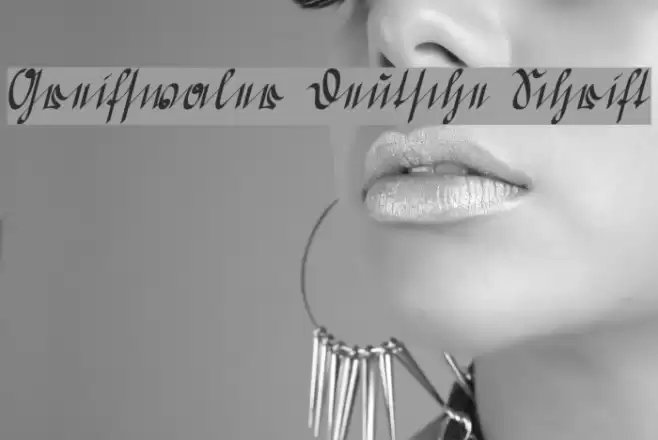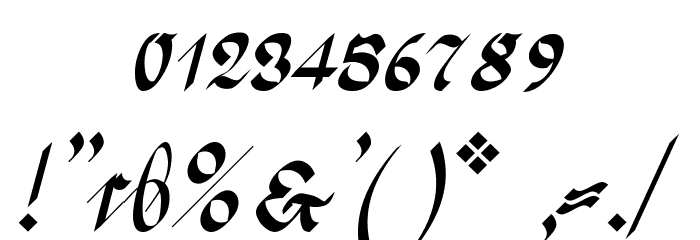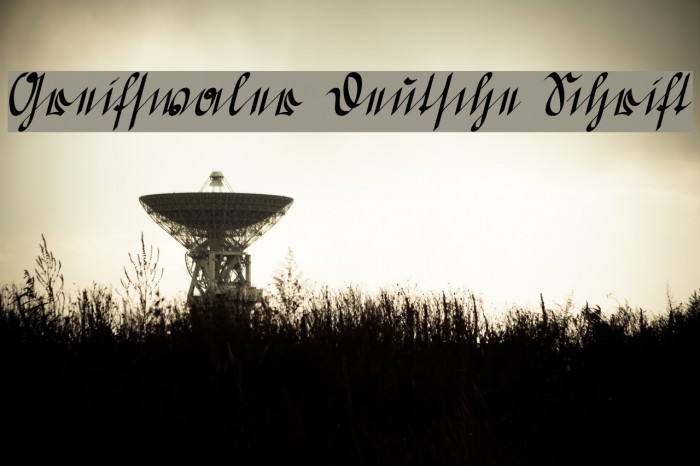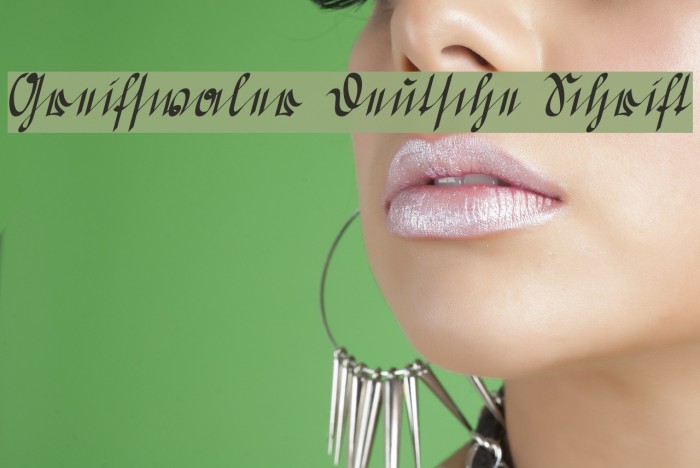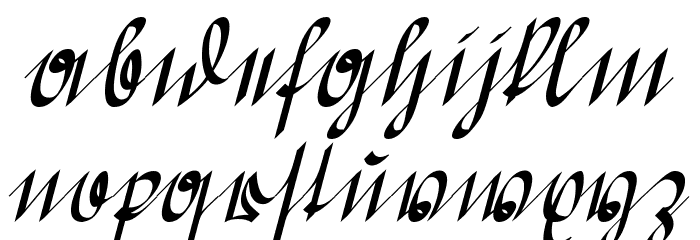
Greifswaler Deutsche Schrift Font
Greifswaler Deutsche Schrift Description
This font exhibits a traditional and ornate style, reminiscent of historical German script. The characters are highly decorative with intricate flourishes and a calligraphic flair. The uppercase letters are bold and commanding, while the lowercase letters maintain a consistent flow, enhancing the script's elegance. Numbers and special characters are designed to match the elaborate style, ensuring a cohesive appearance across all elements. The overall impression is one of sophistication and historical richness, making it suitable for projects that require a touch of classic elegance.
An ornate, historical script with intricate flourishes and a calligraphic style from Uncategorized fonts.
- Proposed Projects: Ideal for invitations, certificates, historical documents, and branding that requires a classic touch.
- Overall Style: Vintage
- Use Case: Logos, Invitations, Certificates